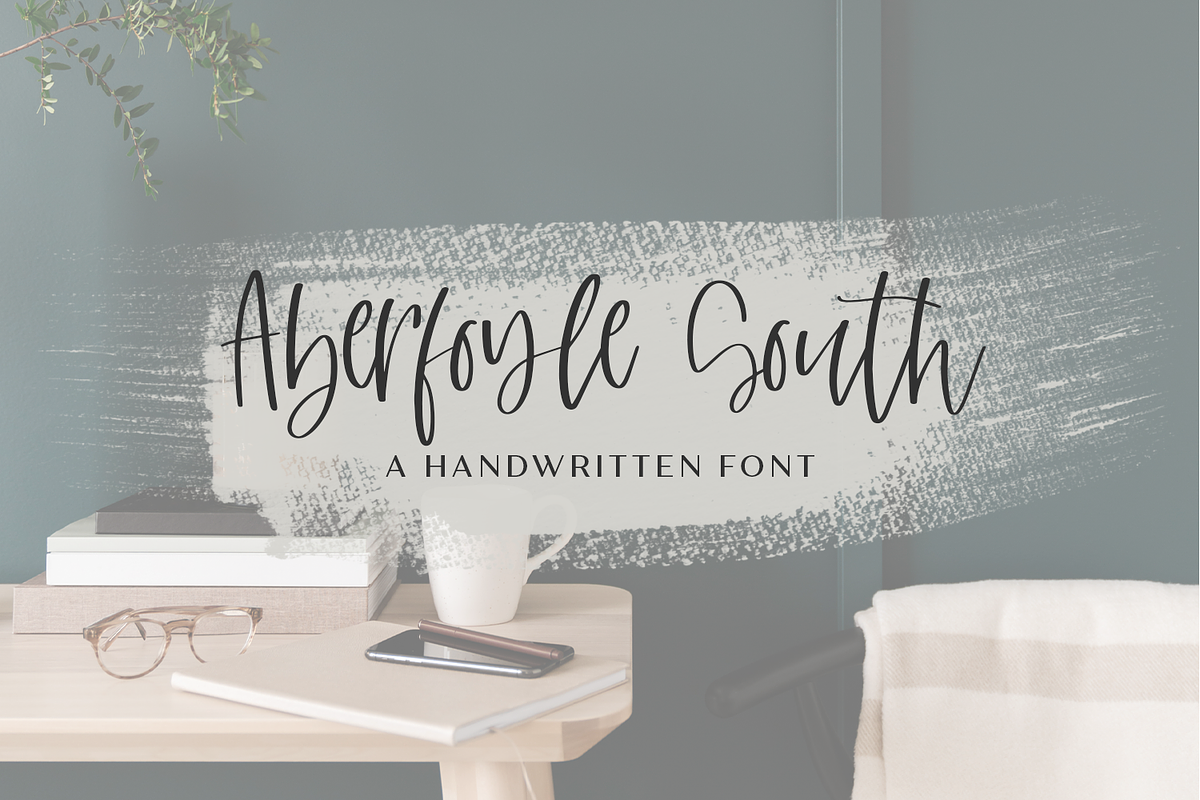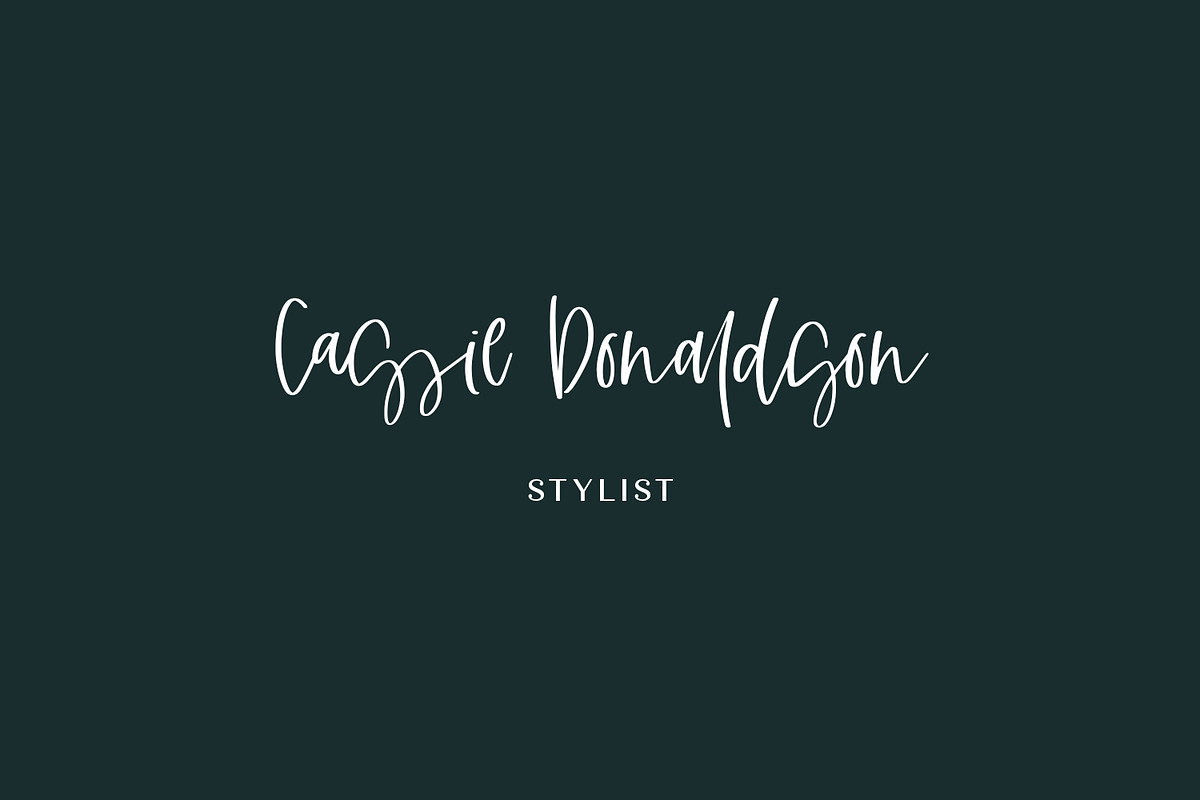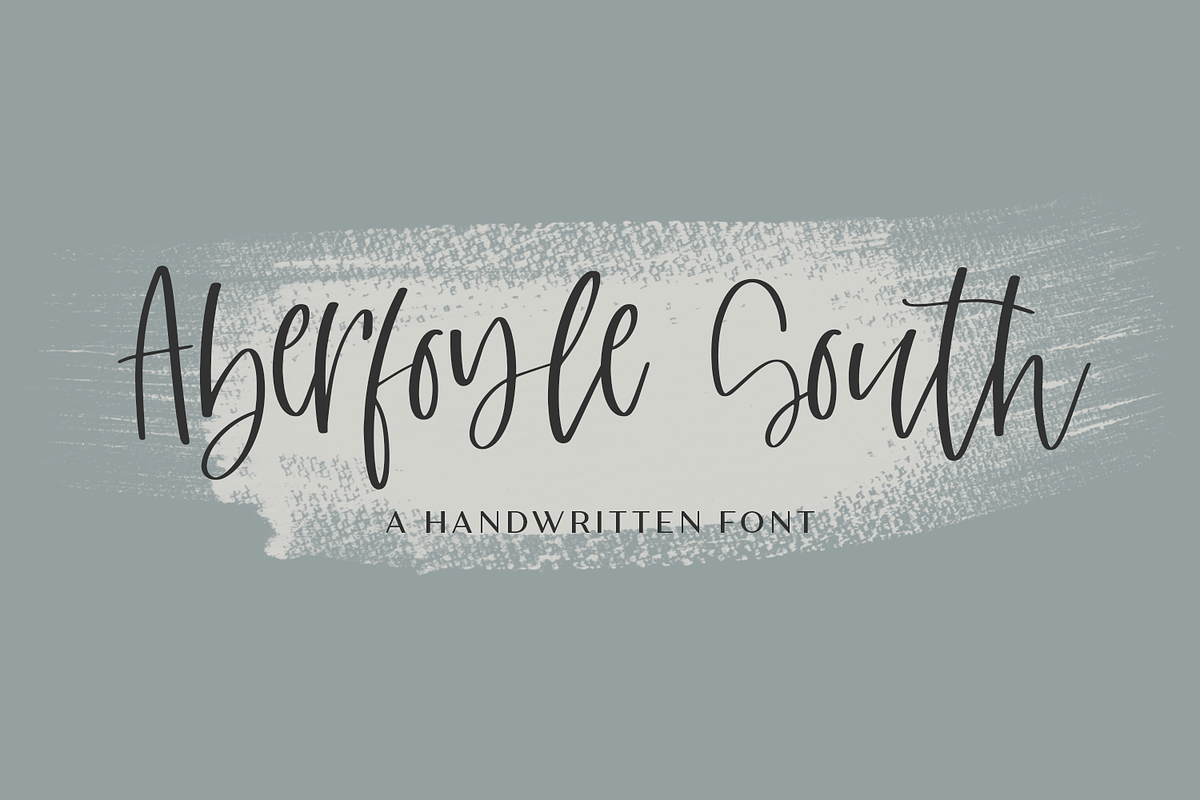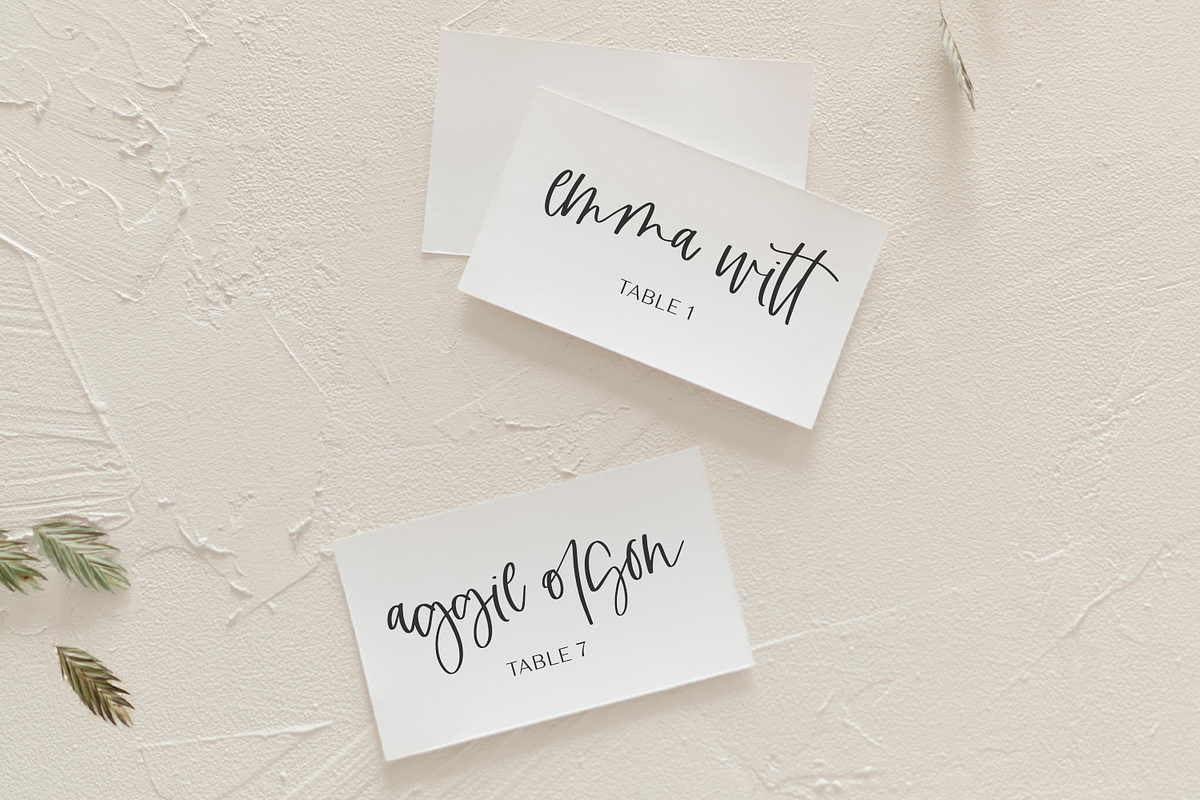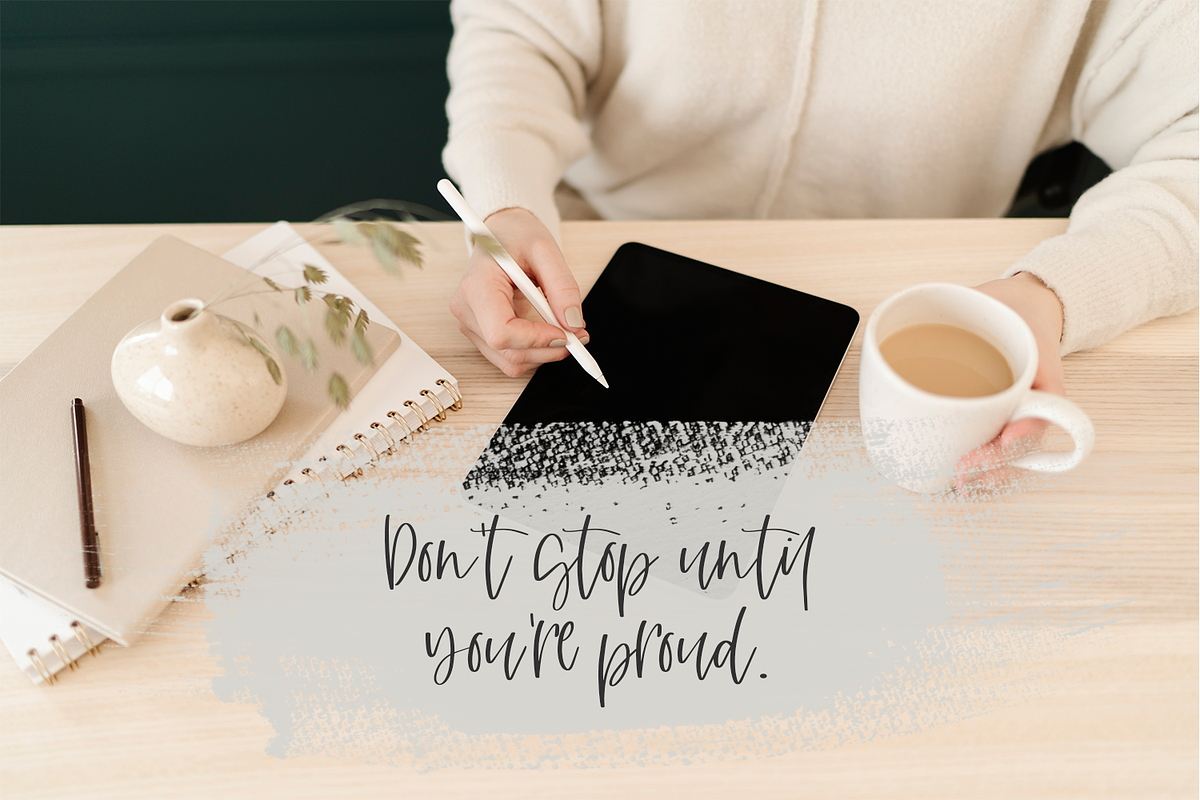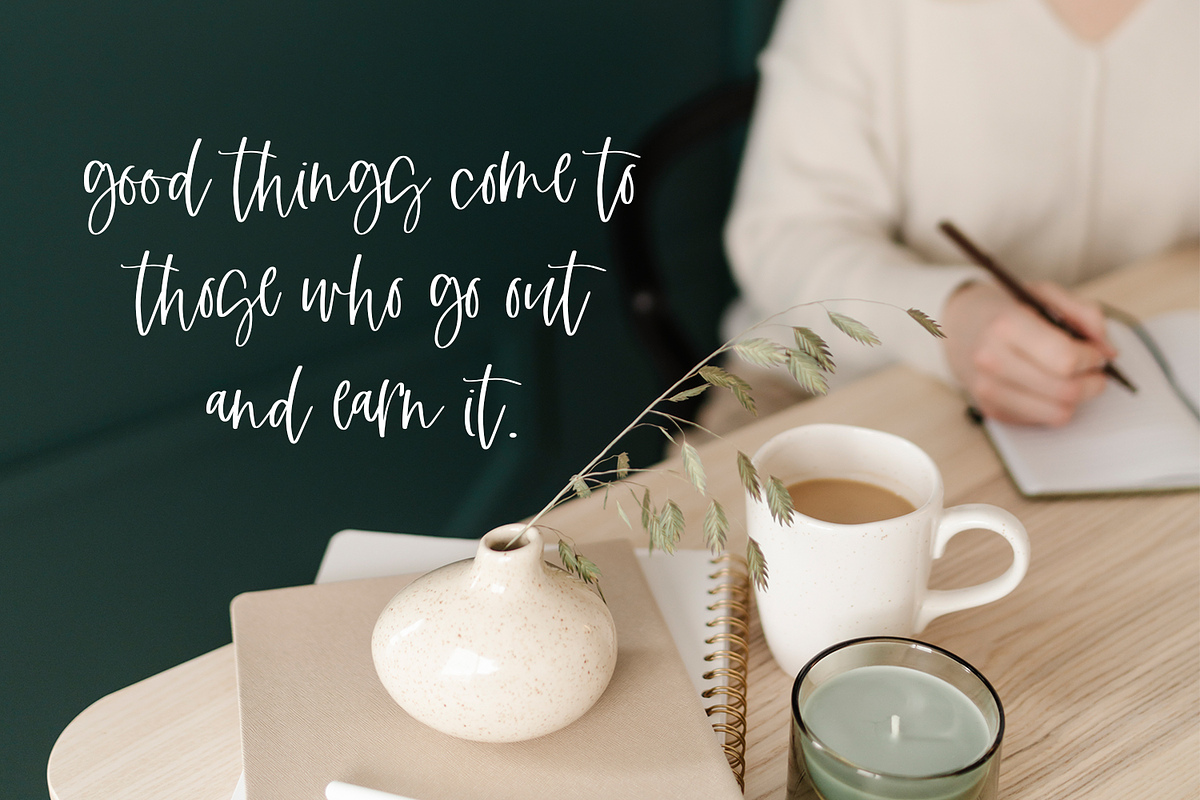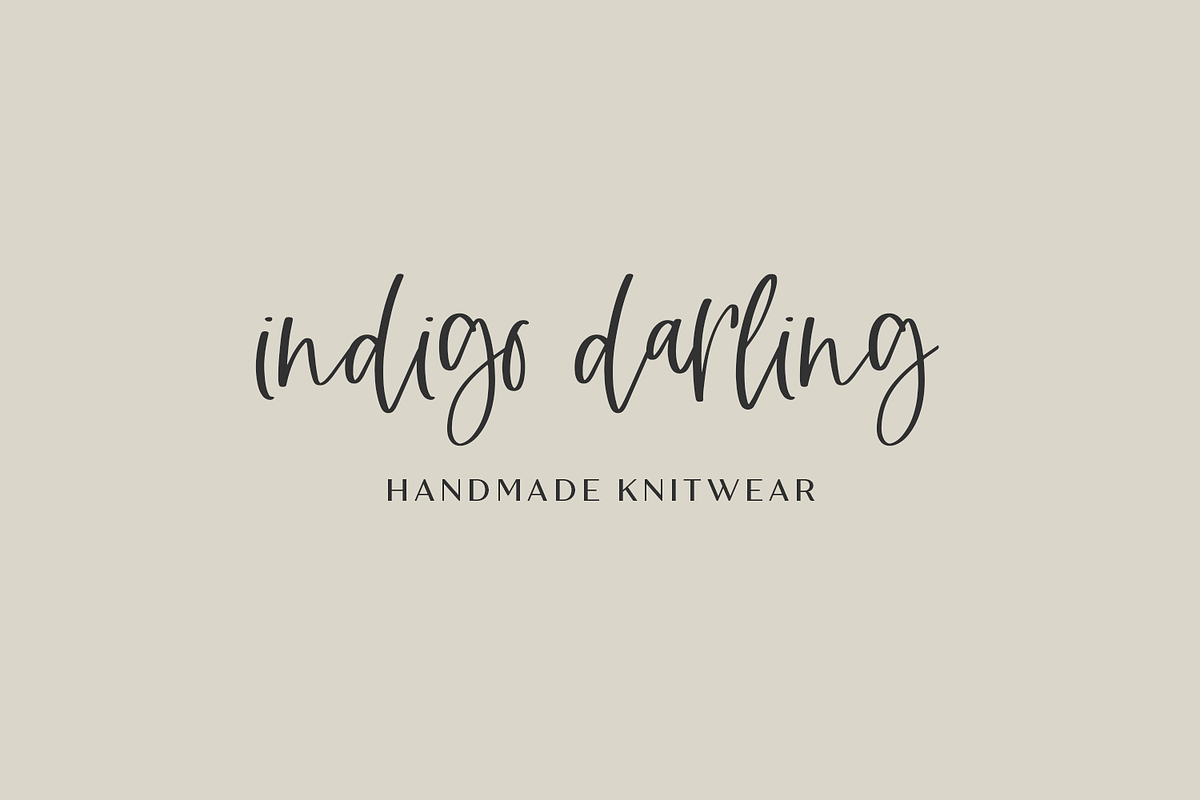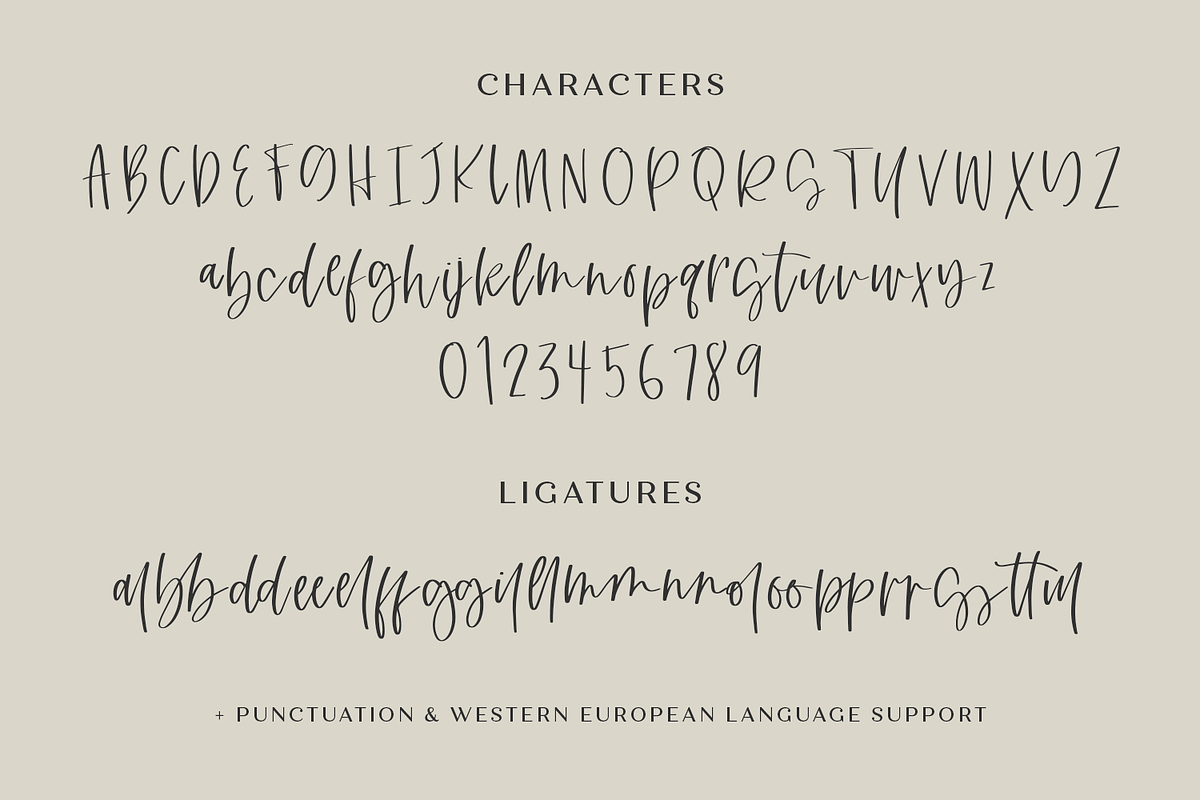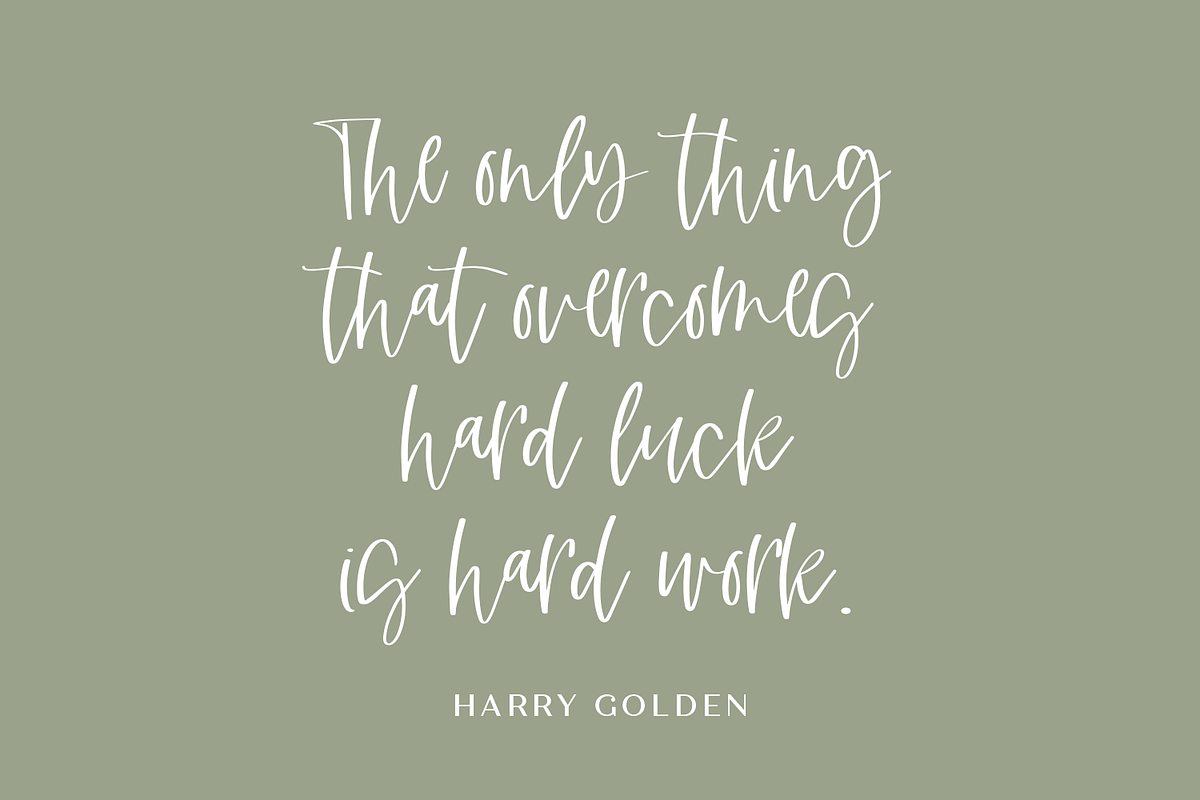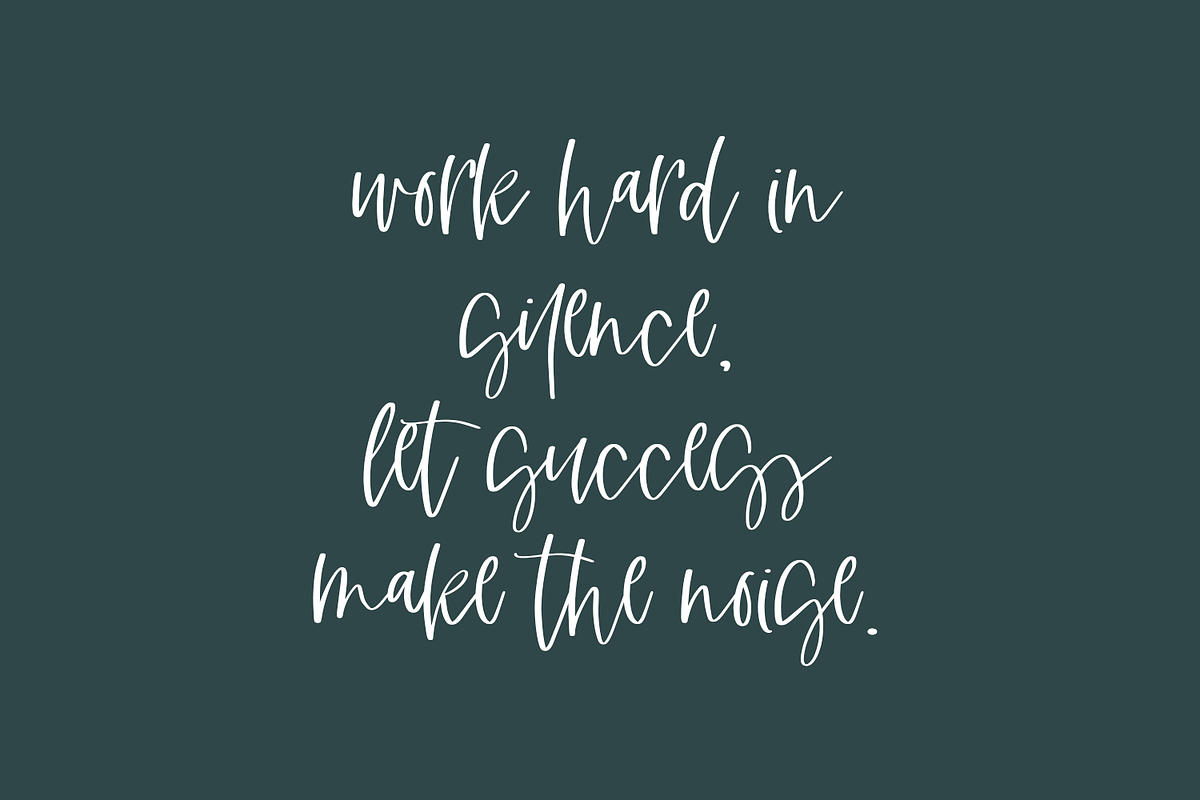
Aberfoyle South Script
Say hello to Aberfoyle South, a handwritten script font. Featuring a scrawly look & varied baseline, Aberfoyle South is a fantastic fit for your next project.
Aberfoyle South is best for:
- logos + branding requiring an edgy, moody aesthetic
- quote graphics for social media
- website design + website accents requiring a legible handwritten touch
- clean print design, like magazines + flyers
- labels & product packaging
Aberfoyle South includes:
- upper and lowercase characters
- numbers + punctuation
- 18 ligatures - al, bb, dd, ee, el, ff, gg, il, ll, mm, nn, ol, oo, pp, rr, ss, tt, ul
- Western European Language Support